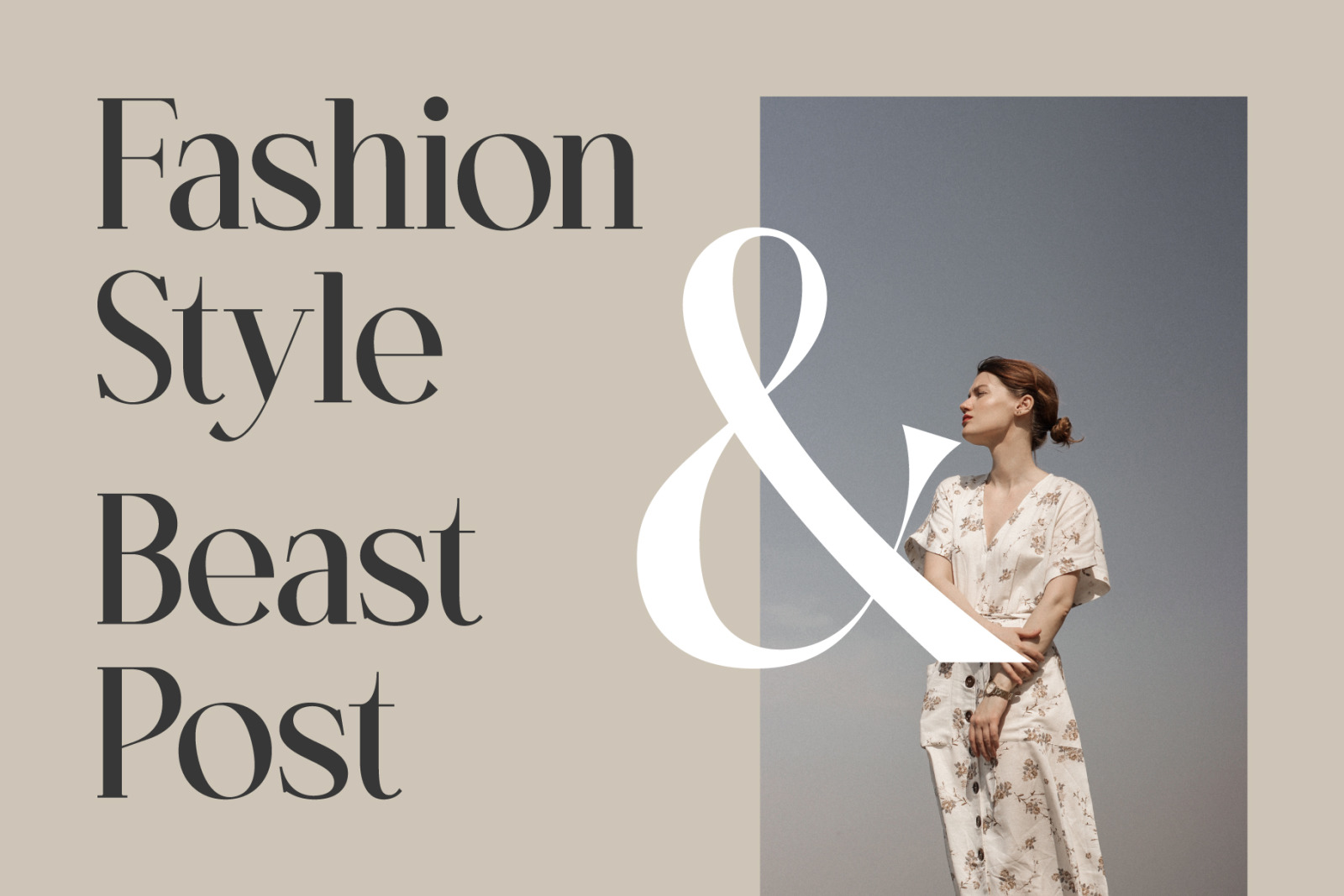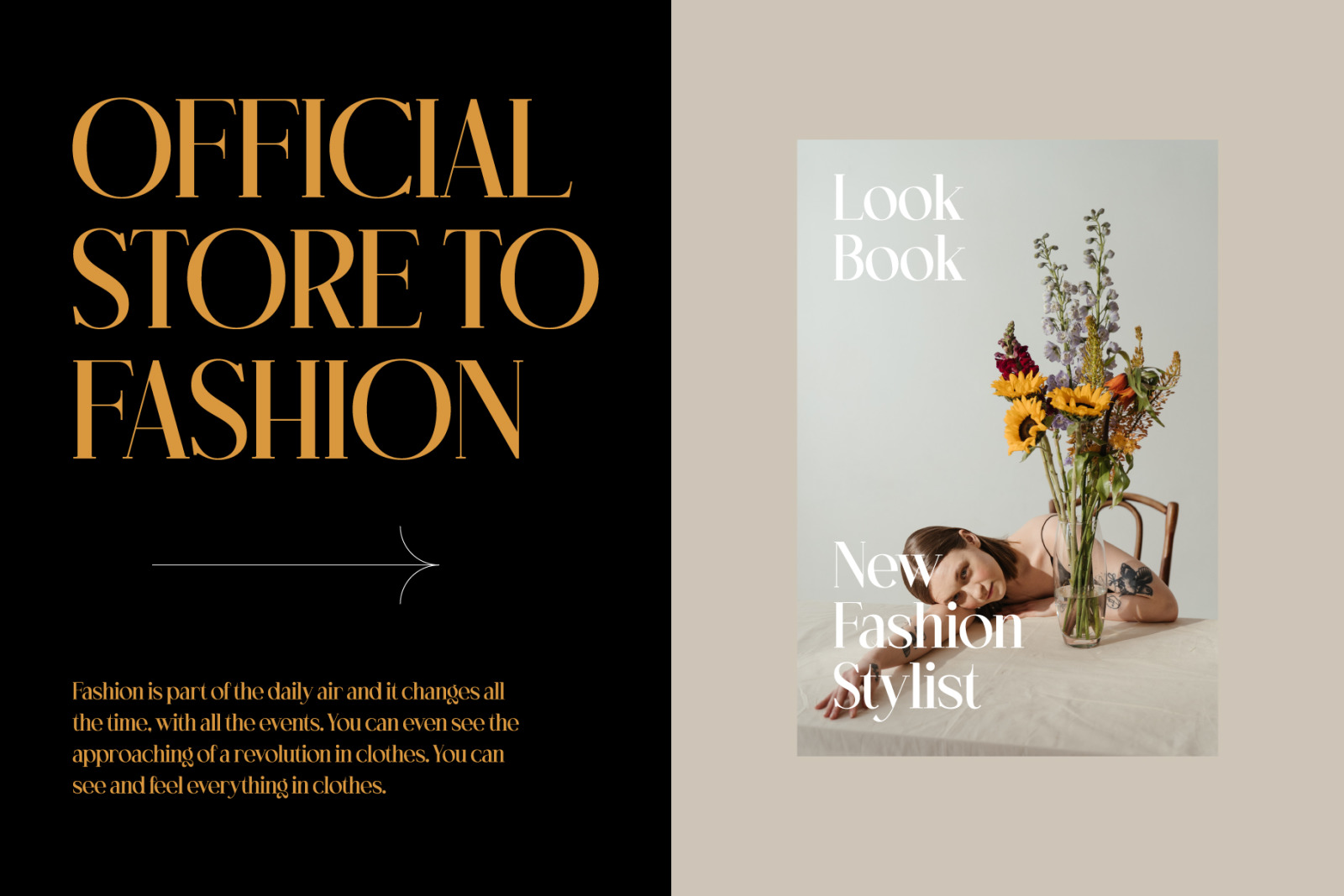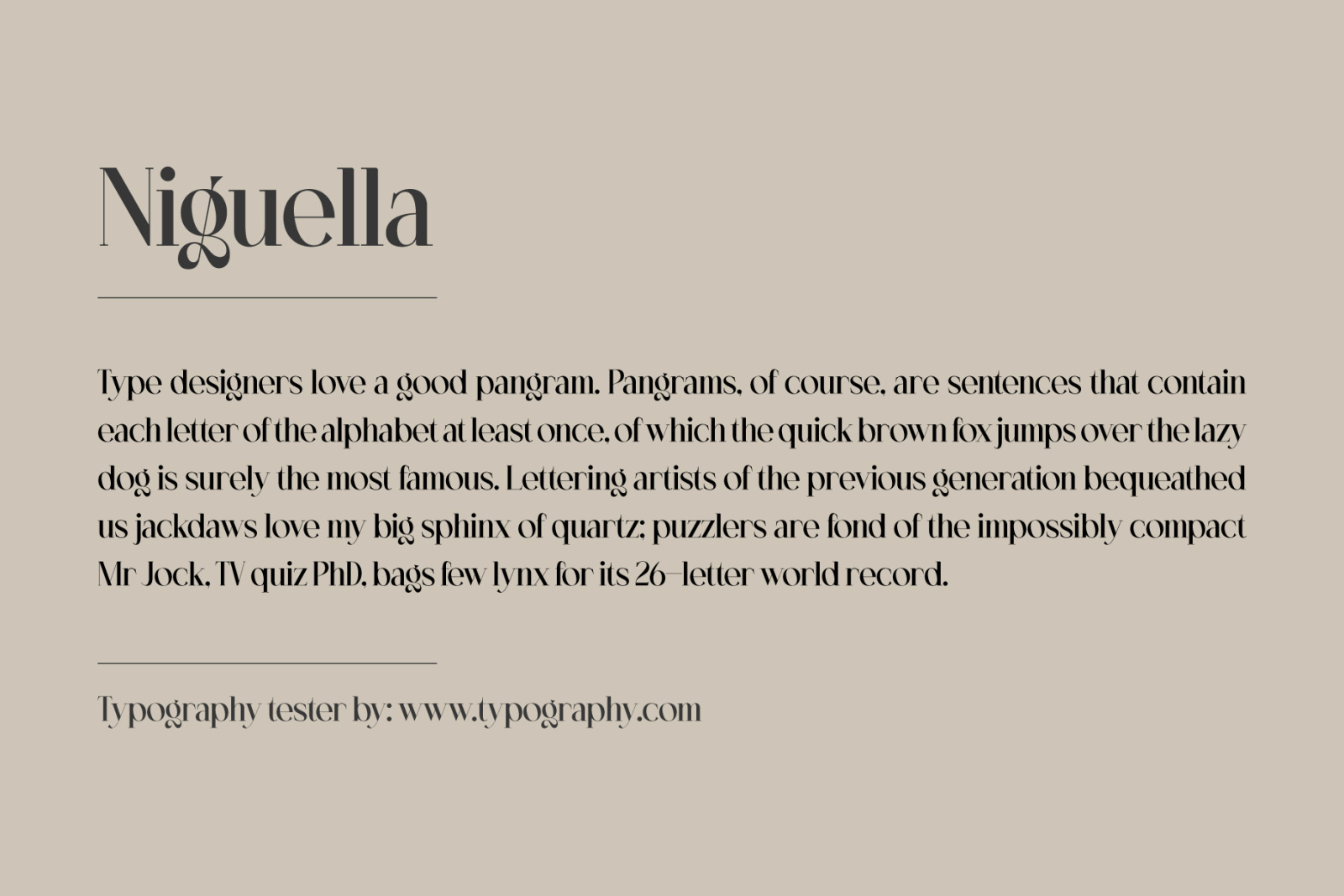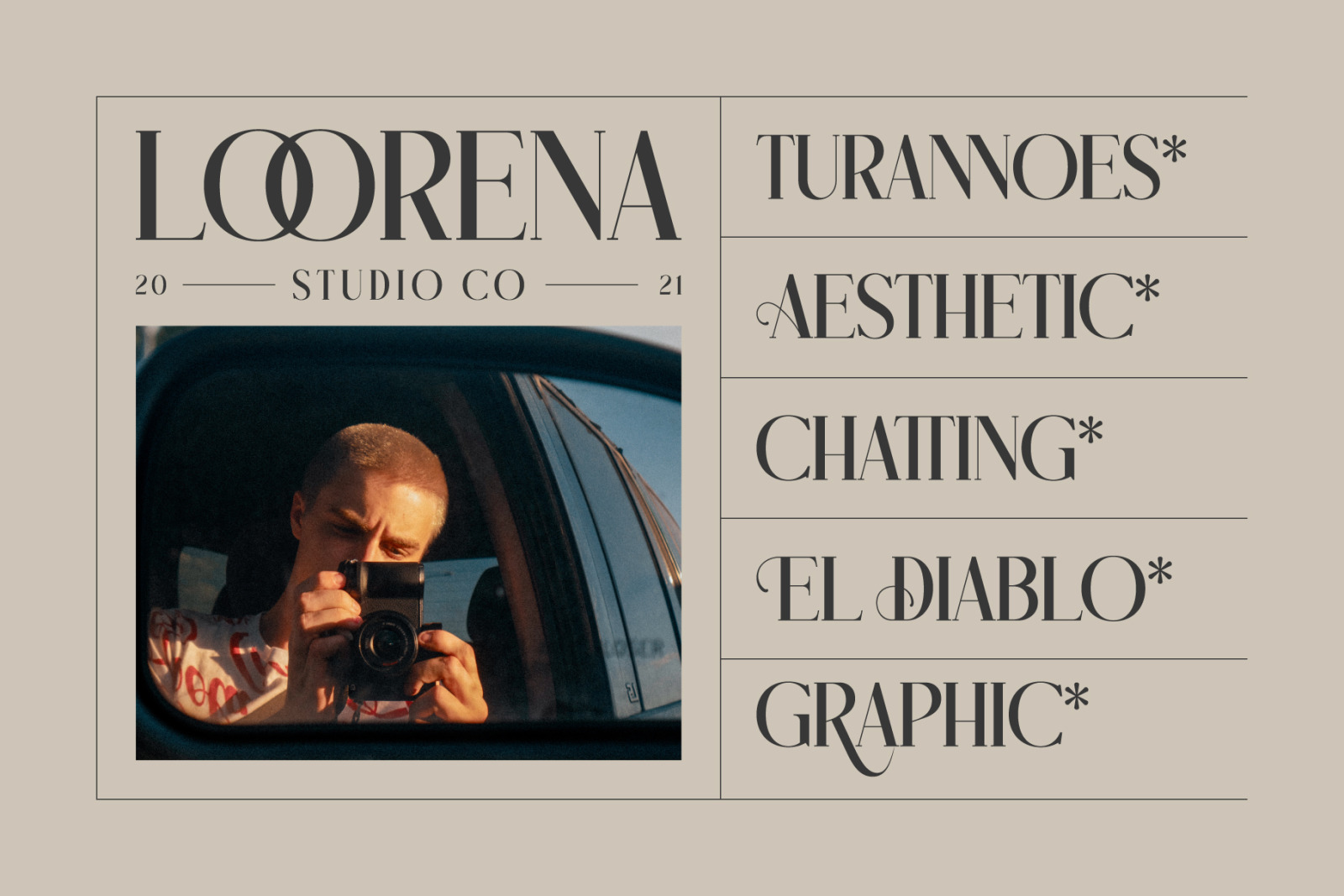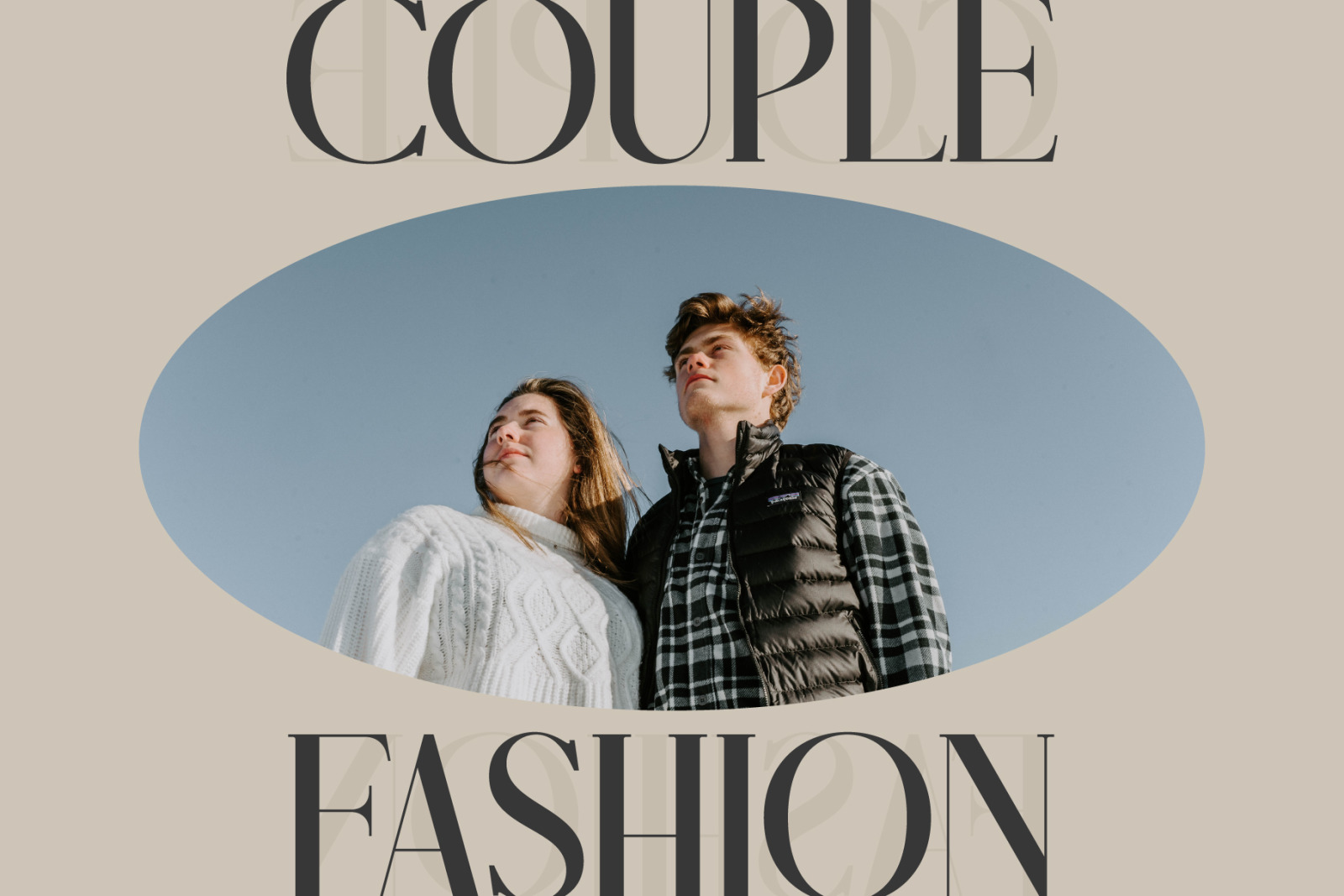
Niguella Font
Niguella is a serif while elegance still maintained. It will boost your design stand out!
Niguella is the perfect typeface for any kind of your project, such as advertisements, branding, graphic design, quotes, wedding design, logo for online or offline business, photography, and others. Make your business more elegant beautiful!